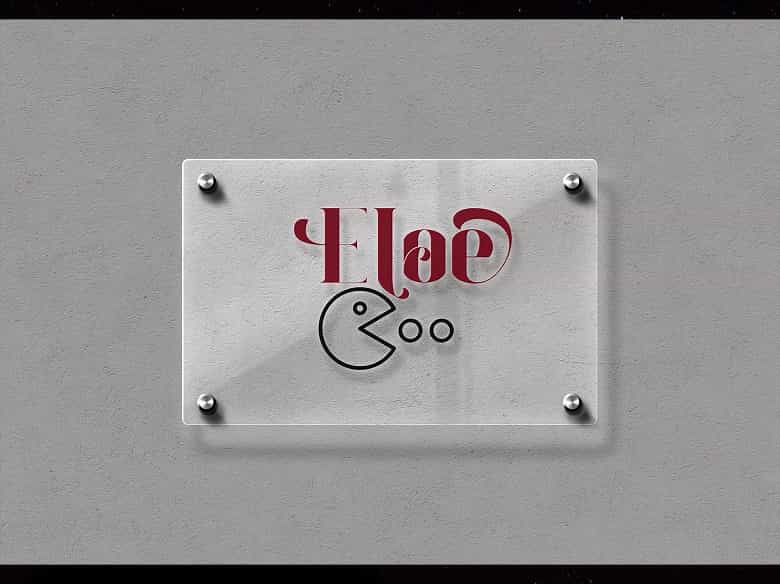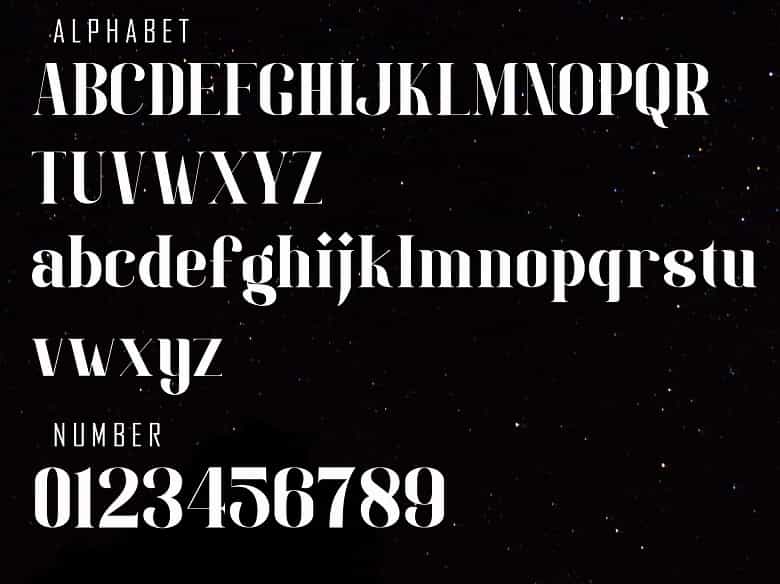
Asgrath is a clean and stylish serif typeface with a clear and elegant design of modern appearance. It is very appropriate for branding, logos, weddings, social networks, advertising, packaging, products, labels, photography, watermarks, invitations, stationery, and any project.